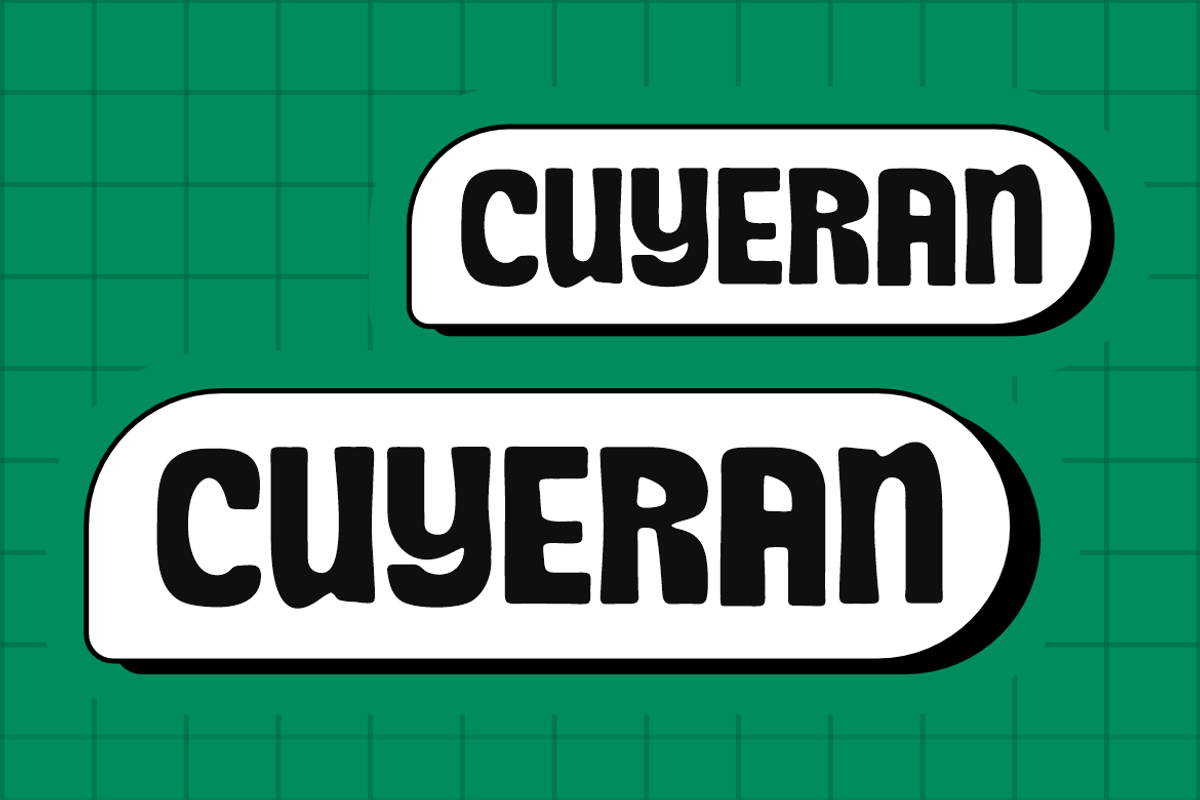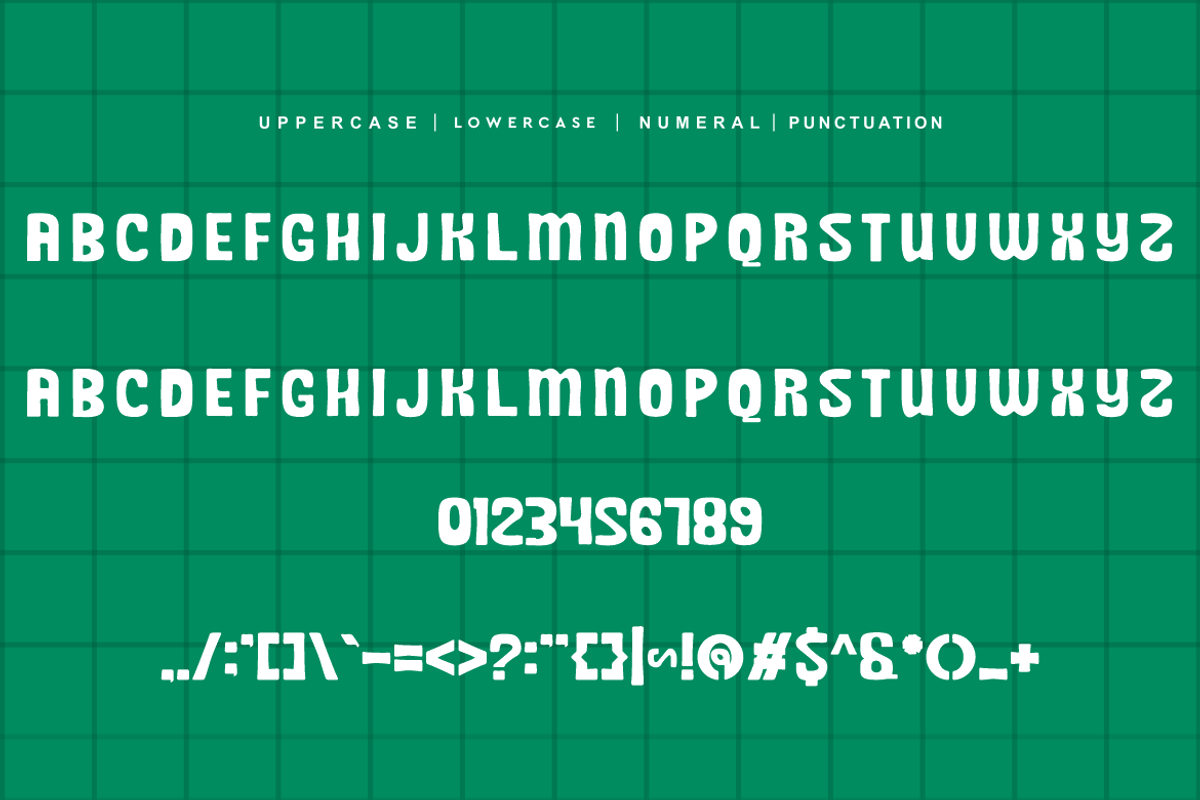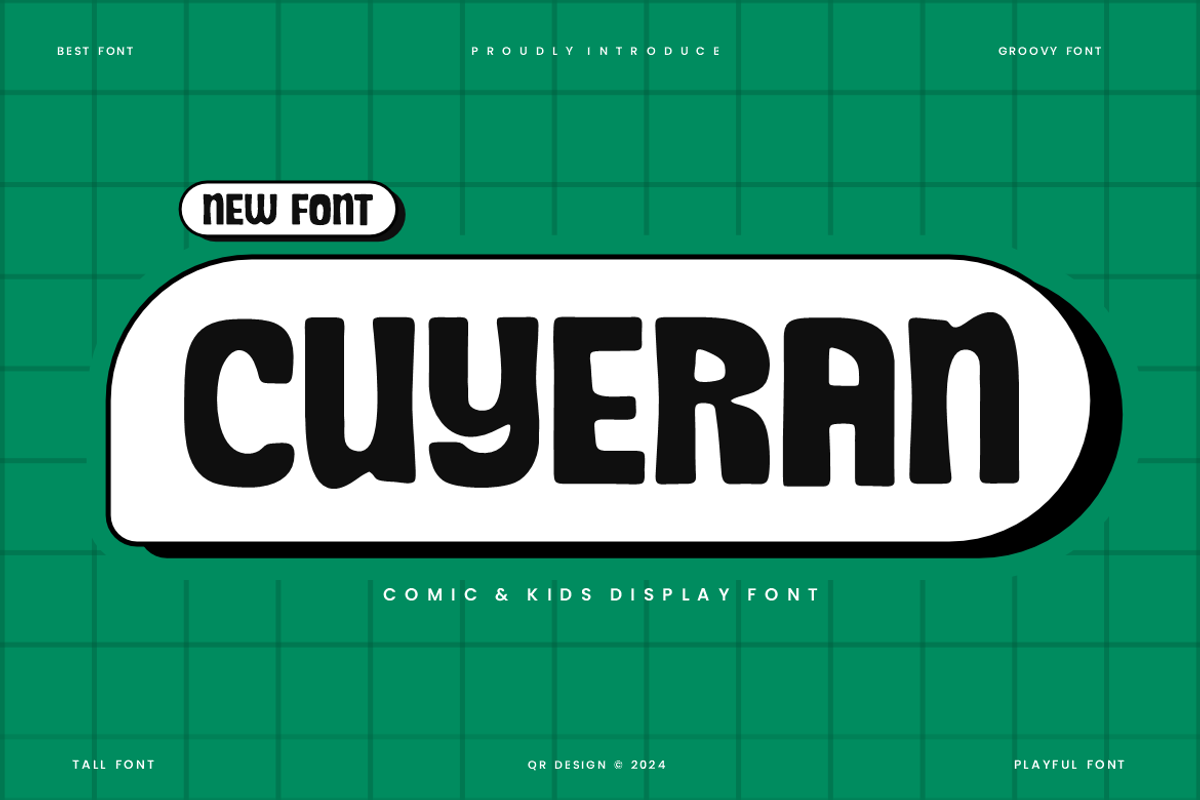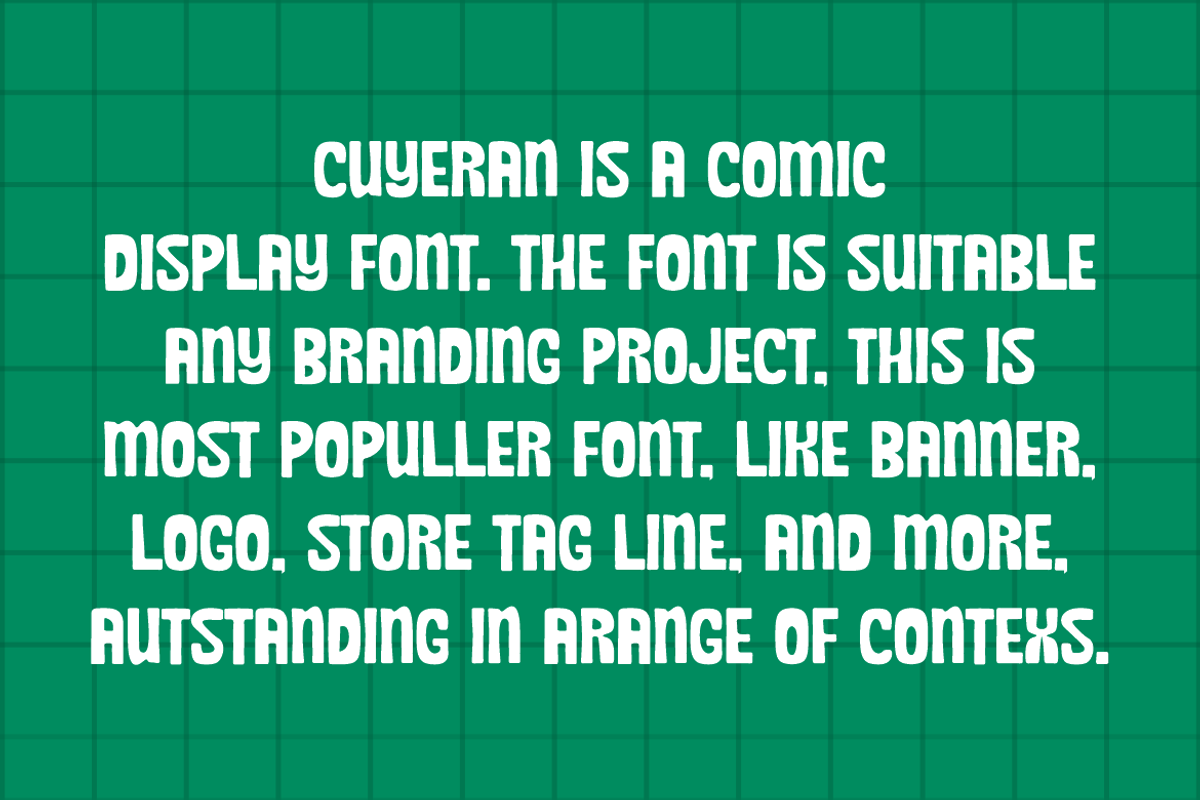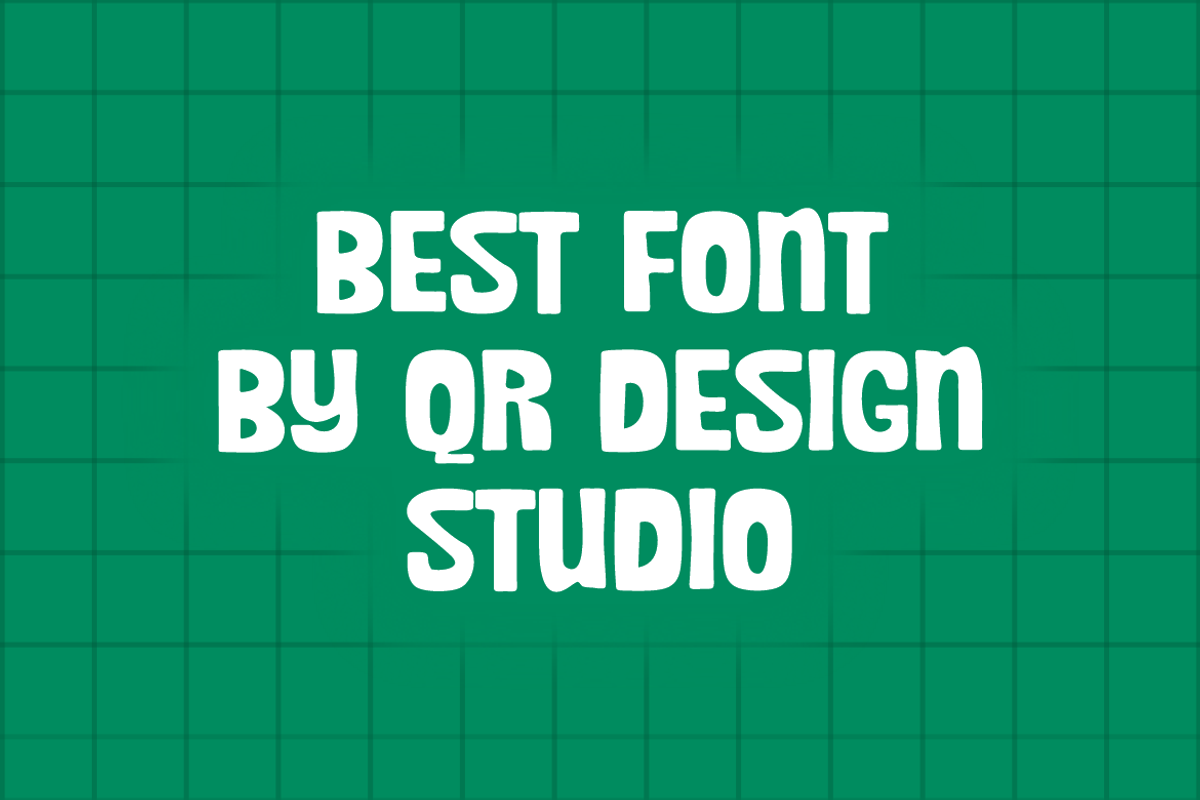
Cuyeran - Comic & Kids Font
Cuyeran Font is a comic and authentic display font. The font is suitable for any branding project like poster, logo, sport, and many more. Outstanding in a wide range of contexts.